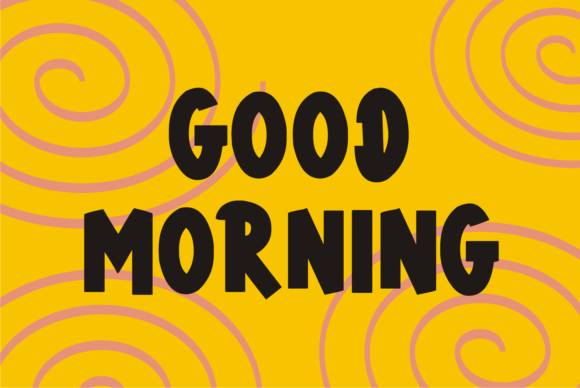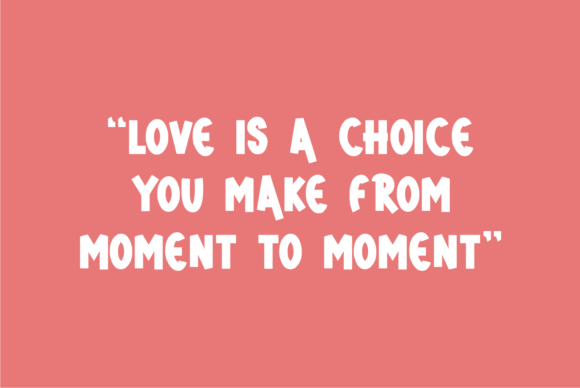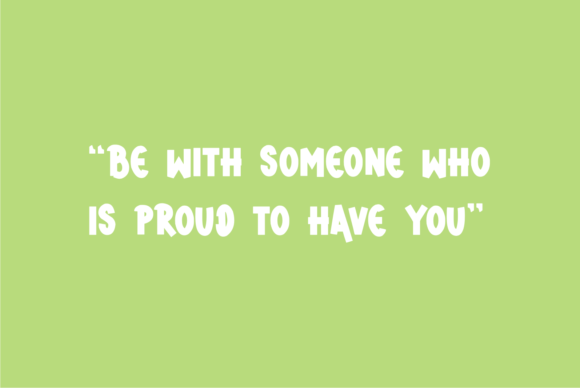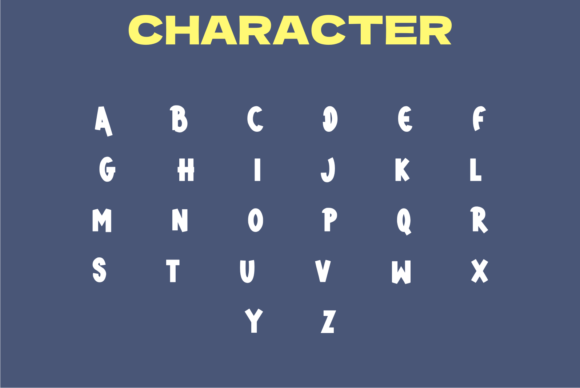
Avolow Font: Elevate Your Designs with a Thick-Lettered and Cool Display Font
In the world of design, typography plays a crucial role in making your creations stand out. Avolow Font is a game-changer in this realm, offering a thick-lettered and cool display font that instantly adds a strong visual effect to your designs. With its simplicity and bold appeal, Avolow Font is the perfect choice for designers and crafters looking to take their work to the next level.
The Power of Avolow Font
Avolow Font is a simple yet impactful font that can instantly make your creations more appealing than any others. Its thick letters and cool display style give it a unique edge, making it perfect for a wide range of design projects, from posters and flyers to social media graphics and branding materials. Whether you’re a professional designer or a crafter looking to add a personal touch to your work, Avolow Font is an excellent choice.
Key Features of Avolow Font
- Thick-Lettered Design: Avolow Font features thick, bold letters that make a statement. Its sturdy design ensures that your text stands out, even at a glance.
- Cool Display Style: The font’s cool display style adds a touch of sophistication and modernity to your designs. It’s perfect for creating eye-catching headlines, titles, and captions.
- Simple yet Impactful: Avolow Font’s simplicity is its strength. The font’s clean lines and minimal ornamentation make it easy to read and understand, while its bold design ensures that it grabs attention.
- Versatile: Avolow Font is versatile and can be used for a wide range of design projects, from print materials to digital graphics.
Benefits of Using Avolow Font
Using Avolow Font in your designs offers numerous benefits, including:
- Increased Readability: The font’s bold design and clear lines ensure that your text is easy to read, even at small sizes.
- Enhanced Visual Appeal: Avolow Font’s thick-lettered design and cool display style add a touch of sophistication and modernity to your designs, making them more visually appealing.
- Time-Saving: With Avolow Font, you can create professional-looking designs quickly and easily, saving you time and effort.
- Unique Edge: Avolow Font’s unique design gives your creations a distinctive edge, setting them apart from others.
How to Use Avolow Font in Your Designs
Using Avolow Font in your designs is easy. Here are some tips to get you started:
- Pair it with Other Fonts: Avolow Font pairs well with other fonts, including sans-serif and script fonts. Experiment with different combinations to find the perfect look for your design.
- Use it for Headlines and Titles: Avolow Font is perfect for creating eye-catching headlines and titles. Use it to grab attention and draw the reader in.
- Experiment with Colors: Avolow Font looks great in a variety of colors. Experiment with different colors and gradients to find the perfect look for your design.
Avolow Font is a powerful tool for designers and crafters looking to elevate their work. With its thick-lettered design, cool display style, and simplicity, Avolow Font is the perfect choice for creating visually appealing designs that stand out. Whether you’re a professional designer or just starting out, Avolow Font is a must-have in your typography arsenal.